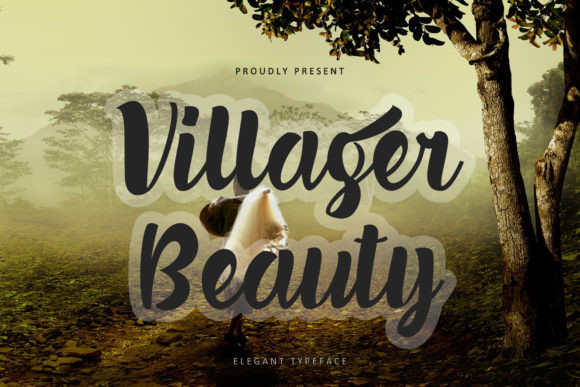
Villager Beauty Font
Villager Beauty FontVillager Beauty is a bold and casual handwritten font. This font is perfect for a wide variety of projects such as quotes, shirt designs, websites, branding, children’s designs, blogs, logos, invitations and much more!